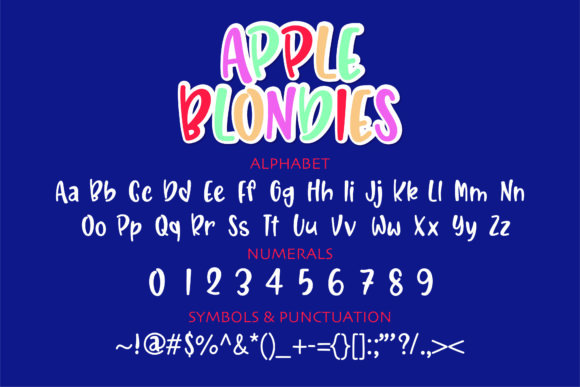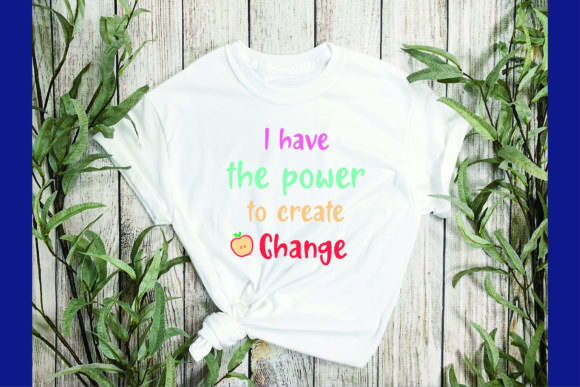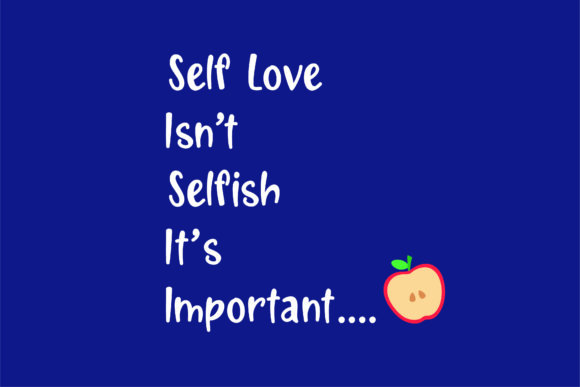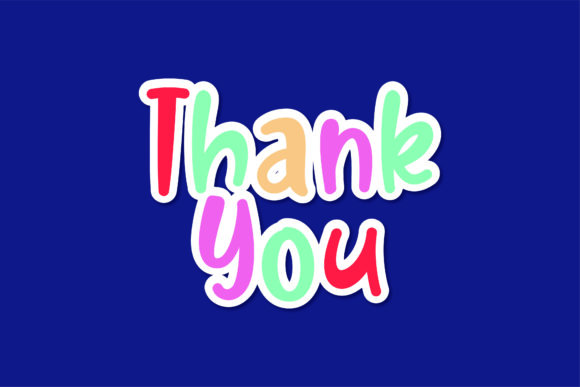
Introducing Apple Blondies Font: The Perfect Addition to Your Children’s Design Projects
Are you a designer or crafter looking for a fun and playful font to add a personal touch to your children’s themed designs? Look no further than Apple Blondies Font! This delightful handwritten font is perfect for creating engaging and visually appealing designs that kids will love. In this article, we’ll take a closer look at Apple Blondies Font, its features, and how you can use it to take your designs to the next level.
What is Apple Blondies Font?
Apple Blondies Font is a fun and simple handwritten font that’s designed to bring a smile to kids’ faces. Its playful and carefree vibe makes it an excellent choice for children’s themed designs, such as kids’ party invitations, educational materials, and craft projects. The font’s simplicity and legibility also make it easy to read, ensuring that your message gets across clearly.
Key Features of Apple Blondies Font
- Handwritten style: Apple Blondies Font has a charming handwritten style that’s perfect for adding a personal touch to your designs.
- Fun and playful: The font’s playful vibe makes it ideal for children’s themed designs, such as kids’ party invitations, birthday cards, and educational materials.
- Simple and legible: Despite its playful style, Apple Blondies Font is easy to read, making it perfect for designs that require clear communication.
- Bright and colorful: The font pairs perfectly with bright colors, making it an excellent choice for designs that require a pop of color.
How to Use Apple Blondies Font in Your Designs
Apple Blondies Font is versatile and can be used in a variety of design projects, including:
- Kids’ party invitations: Create fun and playful invitations that set the tone for an unforgettable party.
- Educational materials: Use Apple Blondies Font to create engaging and interactive educational materials, such as worksheets, activity sheets, and storybooks.
- Craft projects: Add a personal touch to your craft projects, such as DIY cards, gift tags, and scrapbooking pages.
- Digital products: Use Apple Blondies Font in your digital products, such as printable art, planners, and organizers.
Tips for Getting the Most Out of Apple Blondies Font
To get the most out of Apple Blondies Font, here are some tips to keep in mind:
- Pair with bright colors: Apple Blondies Font pairs perfectly with bright colors, so don’t be afraid to experiment with different color combinations.
- Use in combination with other fonts: Mix and match Apple Blondies Font with other fonts to create visually appealing designs.
- Experiment with different sizes: Apple Blondies Font looks great in different sizes, so experiment with different font sizes to add visual interest to your designs.
| Font Name | Apple Blondies Font |
| Author | GoodMoodType |
Apple Blondies Font is a fun and simple handwritten font that’s perfect for children’s themed designs. Its playful and carefree vibe makes it an excellent choice for designers and crafters looking to add a personal touch to their projects. With its simplicity, legibility, and versatility, Apple Blondies Font is sure to become a staple in your design toolkit. So why wait? Download Apple Blondies Font today and start creating engaging and visually appealing designs that kids will love!
Whether you’re a seasoned designer or a crafty DIY enthusiast, Apple Blondies Font is an excellent addition to your design collection. Its ease of use and flexibility make it perfect for a wide range of design projects, from kids’ party invitations to educational materials and craft projects. So go ahead, get creative, and have fun with Apple Blondies Font!